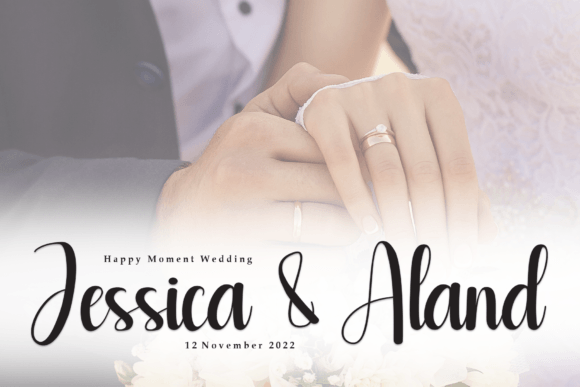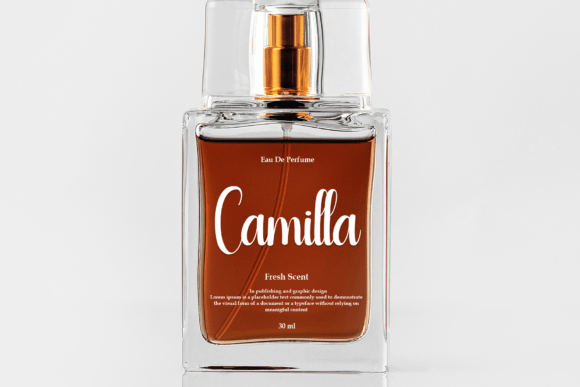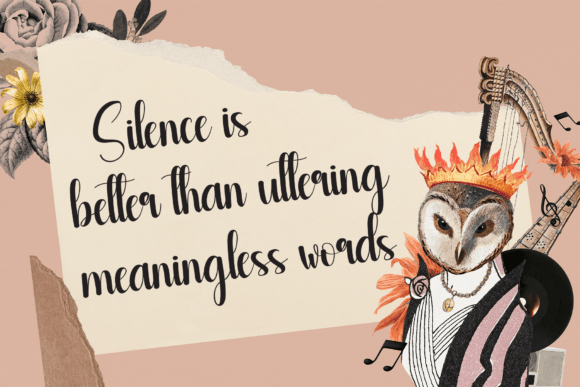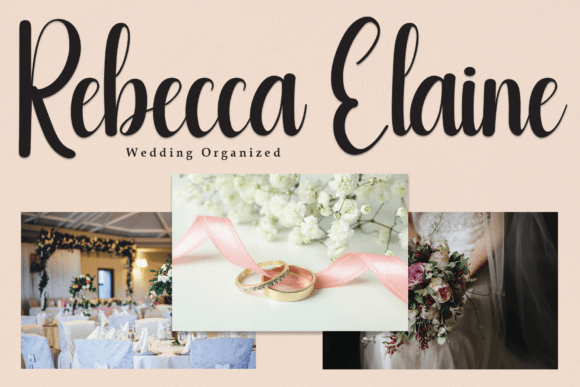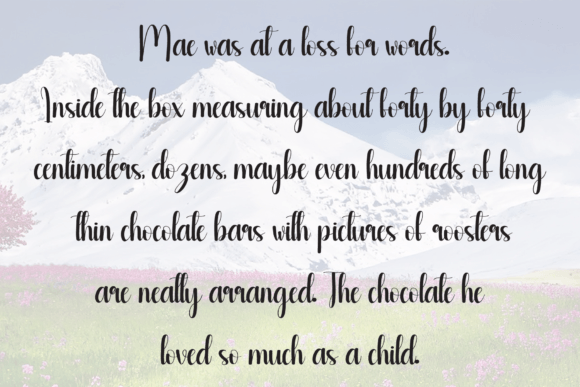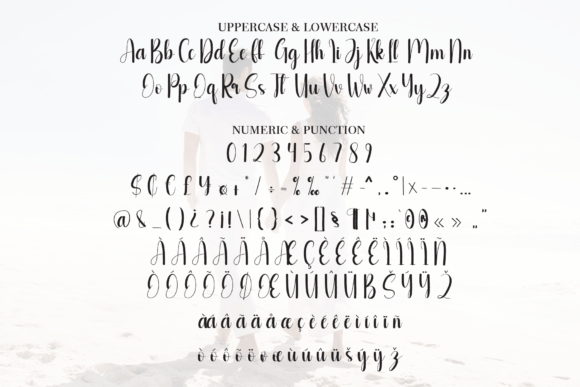
The Sweetest Addition to Your Design Palette
Have you ever been brainstorming ideas for a wedding invitation or a love-themed design, only to be stuck on finding the perfect font? You know, that one that captures the essence of love, joy, and celebration? Well, you’re in luck because we’re about to introduce you to the perfect companion for your romantic designs – the Honeymoon Font.
This adorable handwritten font is designed to bring a smile to your face and a touch of whimsy to your designs. With its cute and fun aesthetic, it’s the perfect choice for writing wedding invitations, cards, or any other design that needs a dash of personality. As a designer, you’ll appreciate the versatility of the Honeymoon Font, which can be used for a wide range of projects, from wedding stationery to social media graphics.
Honeymoon Font Key Features
- Font Family: Honeymoon is a script font designed to evoke a sense of romance and elegance.
- Character Set: The font includes a comprehensive set of characters, including uppercase and lowercase letters, numbers, and punctuation marks.
- Unique Characteristics: The font’s distinctive cursive style, with its flowing connections and subtle flourishes, sets it apart from other script fonts.
Honeymoon Font Review
Overall, I think the Honeymoon Font has a lot of potential, but it also has some limitations. Here are my thoughts on what works well and what could be improved.
- Unique aesthetic: The Honeymoon Font has a distinctive, hand-drawn look that sets it apart from more generic fonts.
- High-resolution quality: The font looks great at various sizes and resolutions, making it suitable for a wide range of applications.
- Creative license: The font’s irregularities and quirks give designers a lot of creative freedom to experiment with unique typography.
- Readability issues: The font’s irregularities can sometimes make it difficult to read, especially for long blocks of text.
- Lack of consistency: The font’s varying line widths and spacing can make it look inconsistent in certain contexts.
- Not ideal for body text: The font’s unique style makes it better suited for headlines, titles, or other emphasis-based typography.
While the Honeymoon Font has its limitations, I think it’s a great addition to any designer’s toolkit. Its unique aesthetic and high-resolution quality make it perfect for creative projects or when you need to stand out from the crowd.
Tips for Getting the Most Out of Honeymoon Font
To get the most out of Honeymoon Font, use it for:
- Love-themed posters and graphics
- Wedding website and social media graphics